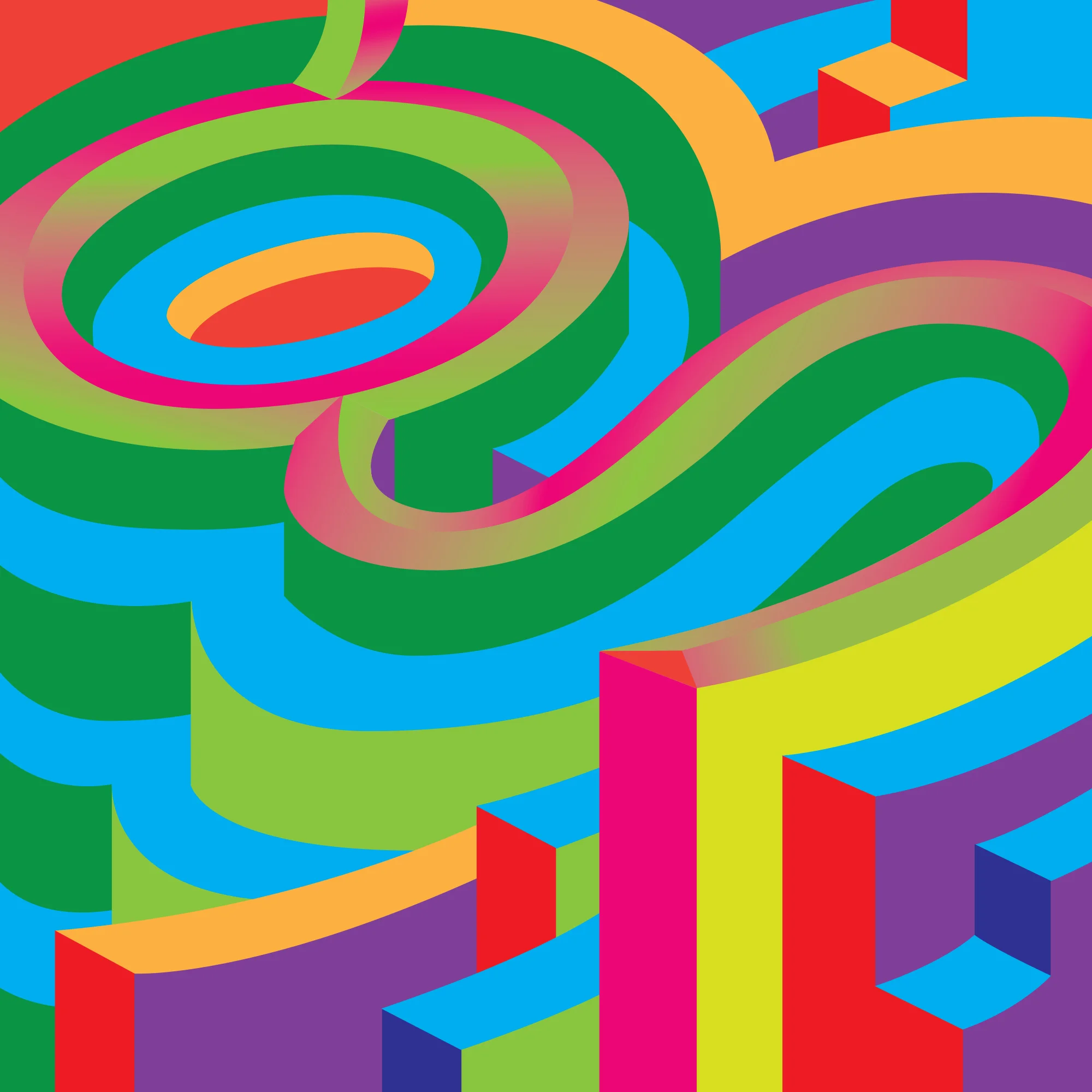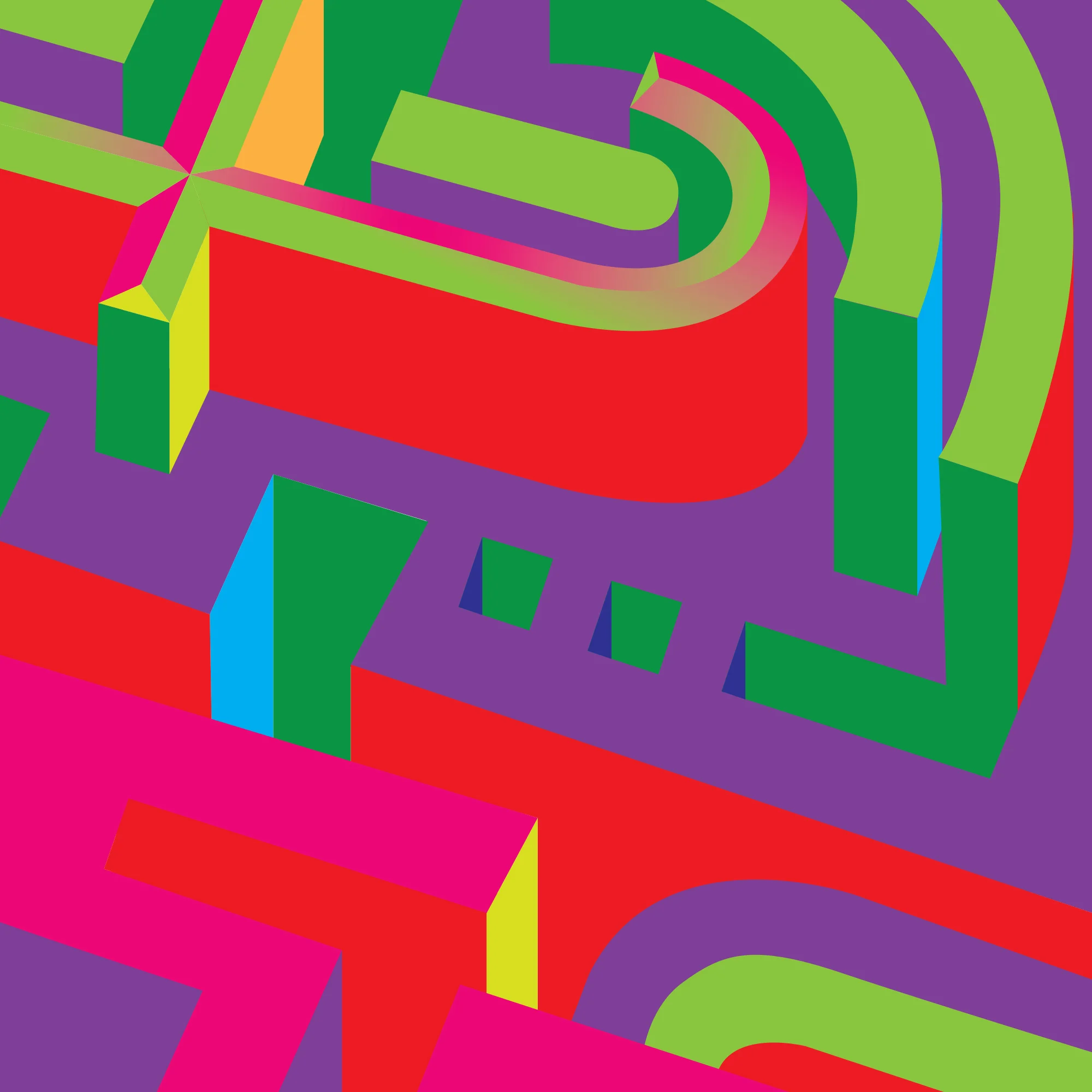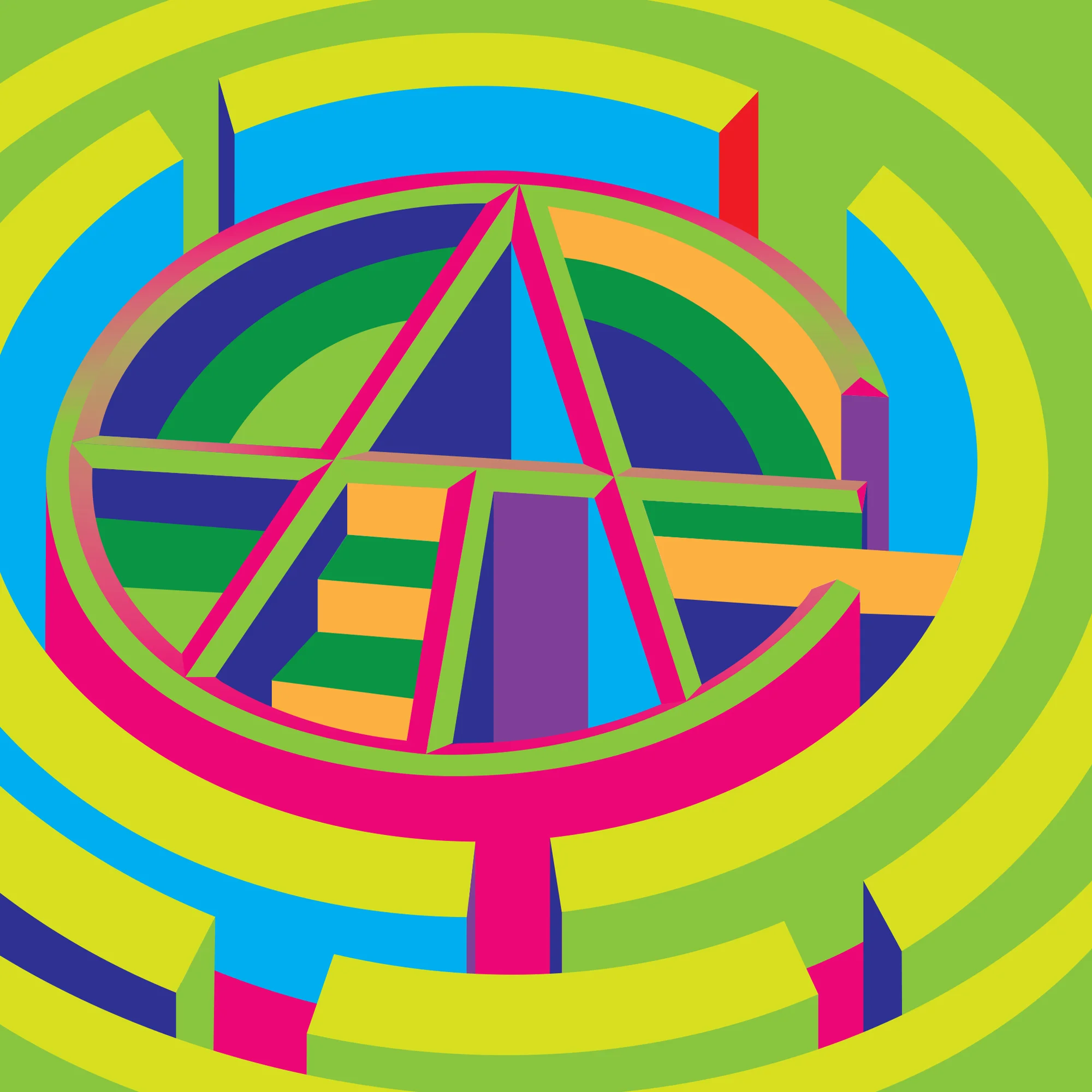
Artist, Illustrator and Letterer Judith Mayer is one of the contributing artists to Avondale Type Company's Artist series. The ATC Artist Series III is an illustrated exploration of the alphabet, highlighting illustrators and designers from around the world with alphabetic type specimen posters.
Now in its third year, the artist series boasts over 50 of the worlds leading illustrators from over 15 countries.
The premise is simple, an artist takes two letters, one symbol and the ATC logo and interprets it, using one ATC typeface, in any way they see fit. Outside of these guidelines, the interpretation is entirely up to the artist.
Judith chose the typeface ATC Harris, "because I was charmed by the two-storey lowercase g and the ampersand. The monospacing meant that normally narrow characters like the lowercase t are wide in order to fill the space."
Using the g, &, t - and ATC logo, Judith exploded the regularity of the typefaces monospaced constraints.
Judith writes "My design started with creating a feeling of a three-dimensional space, but then I explored how highlight and shadow can inform (or confuse) the viewer about space. I replaced light where dark might be in some areas. Flatness and depth are competing with each other. Inspired by psychedelic posters, I used a lot of colors with similar intensity next to each other. I titled this series Typedelic."
When I first saw these letterforms in my inbox I immediately thought of a maze, and the woozy disorinetation of being lost in an Escher like space.
Judith writes "After I completed the designs I realized they reminded me a little bit of pinball machines!"